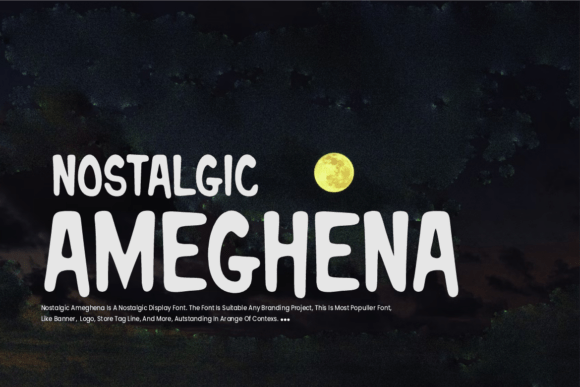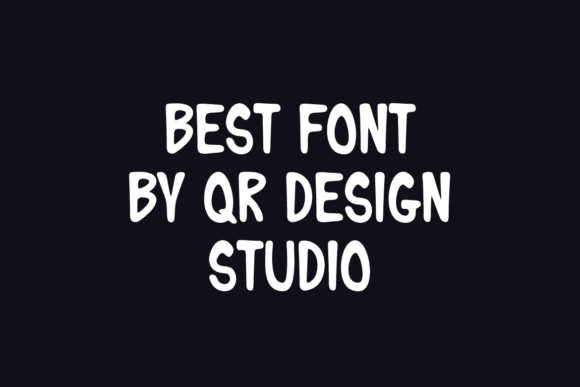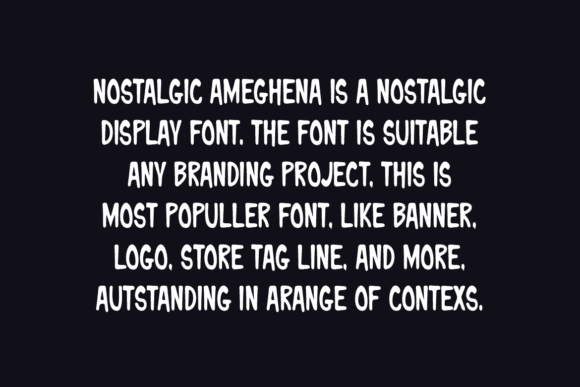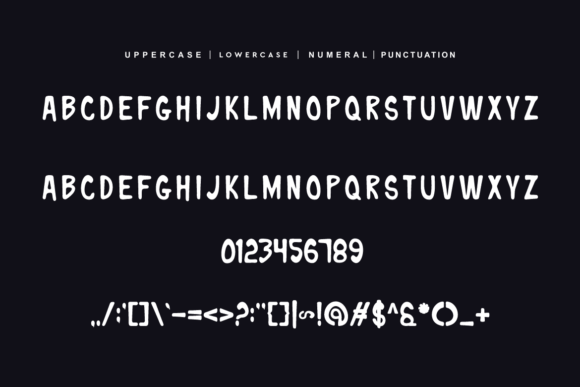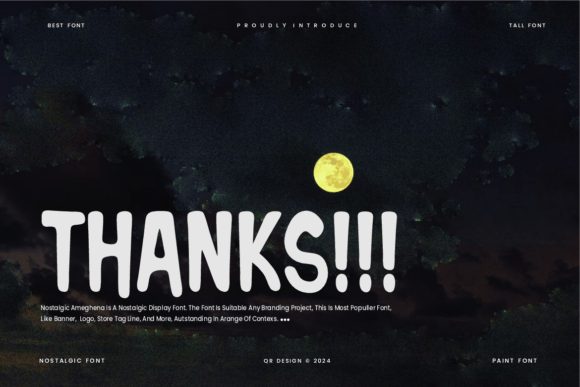
Introduction to Nostalgic Ameghena Font
Remember the thrill of designing a logo for your favorite sports team or creating a bold new identity for a local business? The rush of seeing your ideas come to life on a transparent background, with a font that screams authenticity and style? That’s what happens when you choose the right font, like the Nostalgic Ameghena Font.
This stunning display font is the perfect addition to any creative project. With its bold and authentic design, it’s no wonder why designers are clamoring to get their hands on it. And the best part? It’s available for free download, making it an invaluable design resource for anyone looking to elevate their work.
Whether you’re working on a high-quality branding project or simply want to add some personality to your next design, the Nostalgic Ameghena Font is sure to impress. Its versatility and timeless appeal make it a valuable asset for any designer looking to take their work to the next level.
Key Features of Nostalgic Ameghena Font
- Unique blend of vintage and modern design elements, perfect for creative projects that require a touch of nostalgia.
- Available in 5 font styles, including bold, italic, and regular, to cater to various design needs.
- High-quality font with clear, legible characters and smooth lines, ideal for print and digital applications.
- Comes with a transparent background, allowing designers to easily place the font over any image or background.
- Includes a comprehensive character set, covering a wide range of languages and characters, to meet the needs of diverse design projects.
Honest Review: Nostalgic Ameghena Font
I recently had the chance to work with the Nostalgic Ameghena Font, and I must say it’s been a game-changer for my creative projects. The font is a beautiful, high-quality design resource that adds a touch of elegance to any project.
What works well is the font’s versatility. It’s perfect for creating a nostalgic feel without being too over-the-top. The transparent background allows for seamless integration into any design, making it a great resource for designers who want to keep things simple.
- ✨ Wide range of styles and weights
- ✨ Highly customizable
- ✨ Great for creating a retro or vintage feel
However, there are a few limitations to consider. The font may not be suitable for projects that require a more modern or futuristic feel. Additionally, the font’s complexity can make it difficult to use in certain design situations.
Overall, I’m very impressed with the Nostalgic Ameghena Font. It’s a high-quality design resource that’s perfect for designers who want to add a touch of nostalgia to their creative projects.
How to Use Nostalgic Ameghena Font
The Nostalgic Ameghena Font is a unique and versatile design resource ideal for creative projects. With its high-quality design and transparent background, it’s perfect for adding a touch of nostalgia to your work.
Tips for Getting the Most Out of Nostalgic Ameghena Font
Experiment with different font sizes and styles to achieve the desired effect. Combine the font with other design elements, such as images or graphics, to create a cohesive and engaging design.
The Nostalgic Ameghena Font is ideal for a variety of creative projects, including:
- Designing retro-themed posters or flyers
- Creating vintage-inspired graphics or illustrations
- Adding a nostalgic touch to presentations or documents
- Designing unique and eye-catching social media graphics